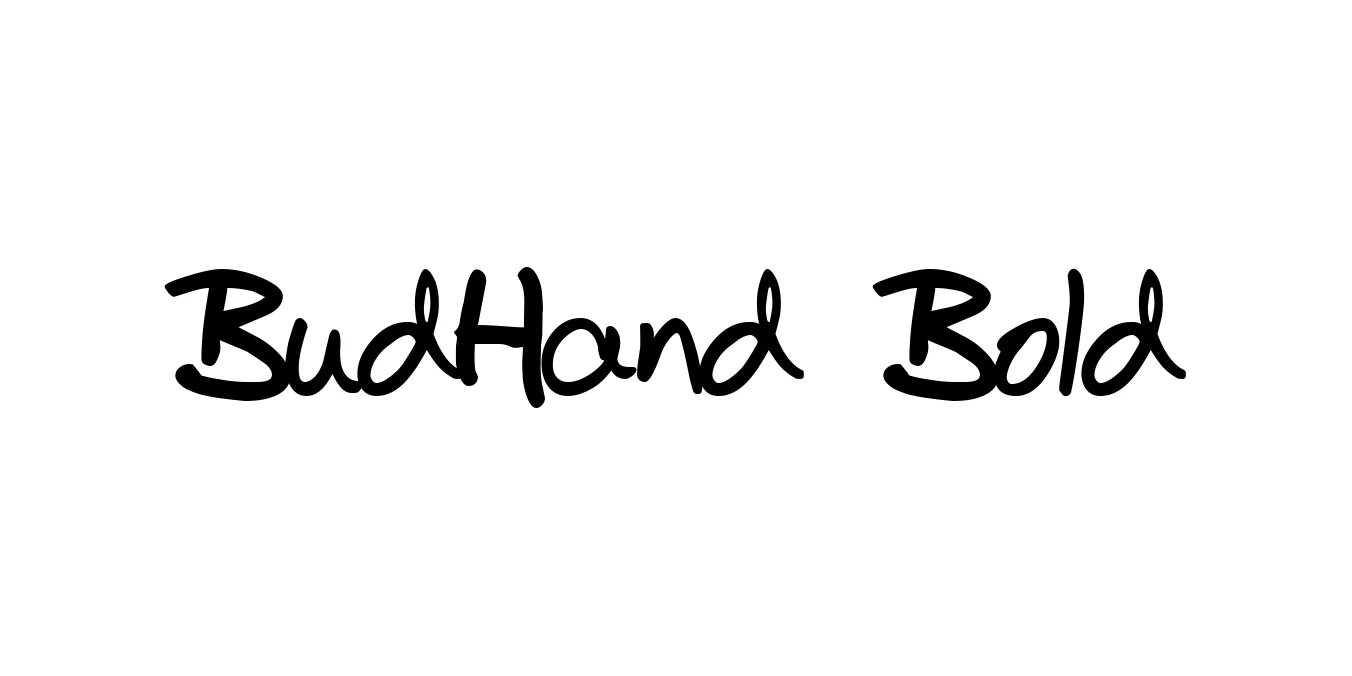
BudHand Bold
Designed by Bud Shark (Sharkshock Digital)
| Category | Handwritten Script |
| Designer | Bud Shark (Sharkshock Digital) |
| Similar Fonts | Bradley Hand, Marker Felt, Tekton, Flux |
BudHand Bold was developed by Bud Shark of Sharkshock Digital as a high-impact extension of his original handwriting series. Rooted in the aesthetic of spontaneous, everyday penmanship, this typeface captures the essence of a felt-tip marker used with purpose and speed. It emerged during a period when digital designers sought to bridge the gap between sterile computer typography and the warmth of human touch, ultimately becoming a popular choice for informal and community-focused projects.
Technically, BudHand Bold exhibits a significant visual presence characterized by its thick, consistent stroke width and organic rhythm. The letterforms feature a generous x-height and rounded terminals that soften the impact of the bold weight, ensuring that the font remains remarkably legible even at smaller display sizes. Unlike more rigid scripts, BudHand Bold utilizes an irregular baseline and varying character widths to mimic natural handwriting, while the open counters prevent the heavy strokes from 'clogging' in print or low-resolution digital environments.
BudHand Bold Best Uses
Perfect for organic food labels and handmade product branding.
Ideal for creating relatable, friendly captions and Instagram stories.
Great for book covers and educational materials requiring a non-intimidating look.
Excellent for personalized invitations and casual greeting cards.